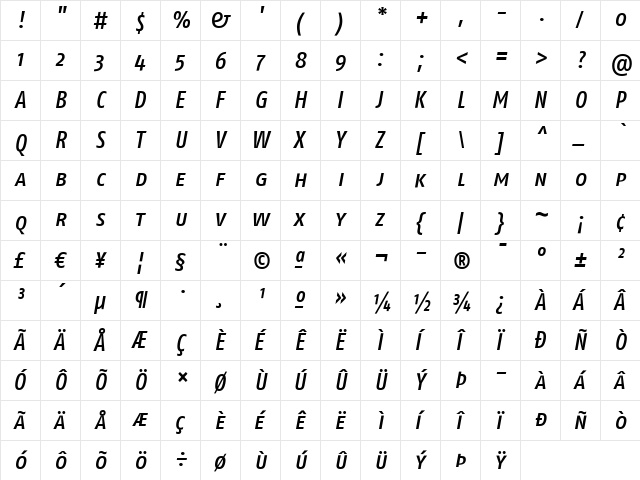
FagoCo ItalicMedium
Design Context for FagoCo Typeface
FagoCo takes a measured approach to typography — its balanced proportions and neutral character make it a reliable workhorse for both digital and print work. Its italic angle brings a sense of urgency and motion to the letterforms.
Pro Tip: Try FagoCo for annotation and caption copy alongside an upright companion — the contrast in angle creates a dynamic but ordered typographic system.